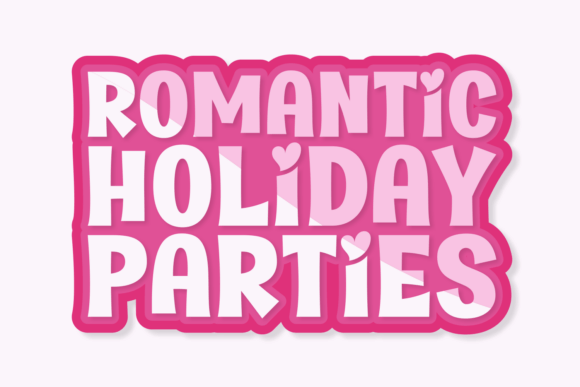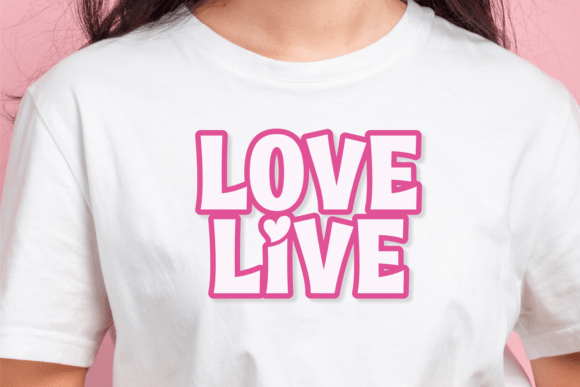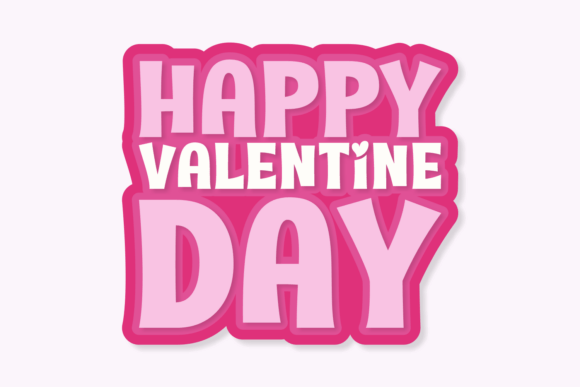
Girls Lover Font: The Ultimate Display Typeface for Fun and Playful Designs
Are you looking for a font that can add a pop of personality and joy to your designs? Look no further than the Girls Lover font! This sweet and high-energy display typeface is perfect for designers and crafters who want to create fun and playful designs that capture the youthful aesthetic.
What is Girls Lover Font?
Girls Lover font is a modern display typeface that features chunky, rounded letterforms that feel incredibly friendly and approachable. The font’s design is characterized by its bold and vibrant style, making it perfect for designs that need to stand out. Whether you’re creating children’s toy packaging, bold fashion branding, or fun social media graphics, Girls Lover font is the quintessential choice.
Key Features of Girls Lover Font
- Chunky and Rounded Letterforms: The font’s chunky and rounded letterforms give it a friendly and modern feel, making it perfect for designs that need to appeal to a young audience.
- Vibrant and Bold Style: The font’s bold and vibrant style makes it perfect for designs that need to stand out, such as children’s toy packaging, fashion branding, and social media graphics.
- Playful and Youthful Aesthetic: The font’s playful and youthful aesthetic makes it perfect for designs that need to capture the attention of a young audience.
How to Use Girls Lover Font
Girls Lover font is a versatile typeface that can be used in a variety of design projects. Here are some ideas for using Girls Lover font:
- Children’s Toy Packaging: The font’s playful and youthful aesthetic makes it perfect for children’s toy packaging.
- Fashion Branding: The font’s bold and vibrant style makes it perfect for fashion branding that needs to stand out.
- Social Media Graphics: The font’s friendly and approachable style makes it perfect for social media graphics that need to capture the attention of a young audience.
- Nursery Decor: The font’s cheerful and playful style makes it perfect for nursery decor designs, such as wall art and baby shower invitations.
- Birthday Party Stationery: The font’s vibrant and bold style makes it perfect for birthday party stationery, such as invitations and party decorations.
Customizing Girls Lover Font
One of the best things about Girls Lover font is its versatility. Designers can customize the font to fit their design needs by adding bright pink gradients or thick outlines to lean into its cheerful, sticker-like quality. This makes it easy to create unique and eye-catching designs that stand out.
Tips for Using Girls Lover Font
- Use it for Headlines: Girls Lover font is perfect for headlines and titles that need to stand out.
- Pair it with Other Fonts: The font can be paired with other fonts to create a unique and visually appealing design.
- Experiment with Colors: The font’s vibrant and bold style makes it perfect for experimenting with different colors and gradients.
Girls Lover font is a sweet and high-energy display typeface that is perfect for designers and crafters who want to create fun and playful designs. Its chunky and rounded letterforms, vibrant and bold style, and playful and youthful aesthetic make it the quintessential choice for a variety of design projects. Whether you’re creating children’s toy packaging, fashion branding, or social media graphics, Girls Lover font provides the perfect blend of cute charm and bold visibility.